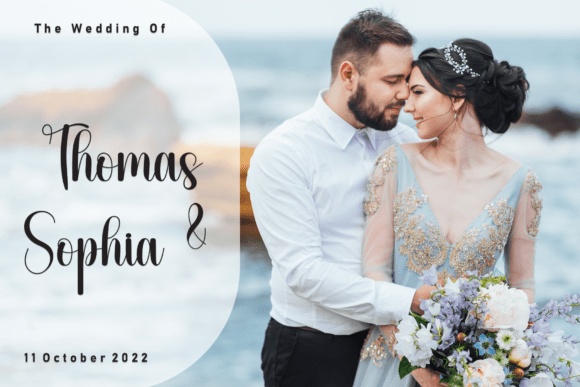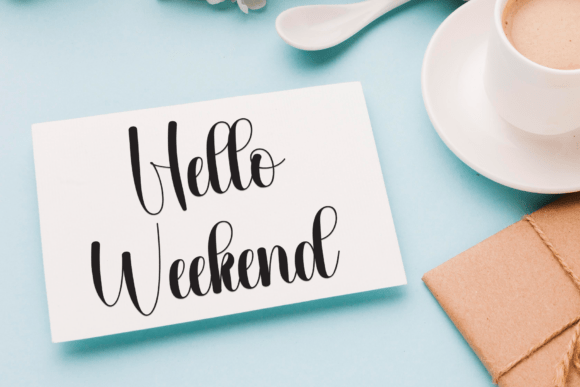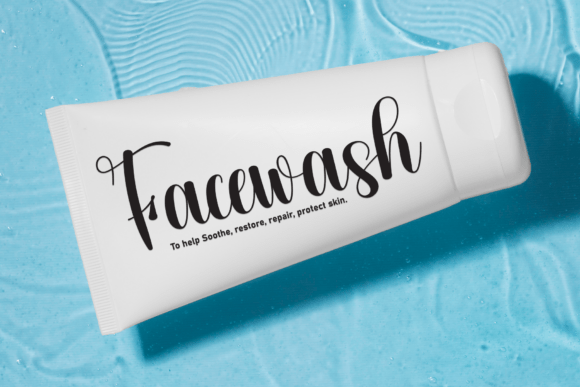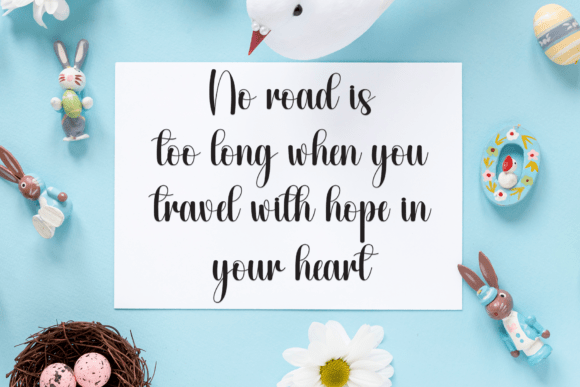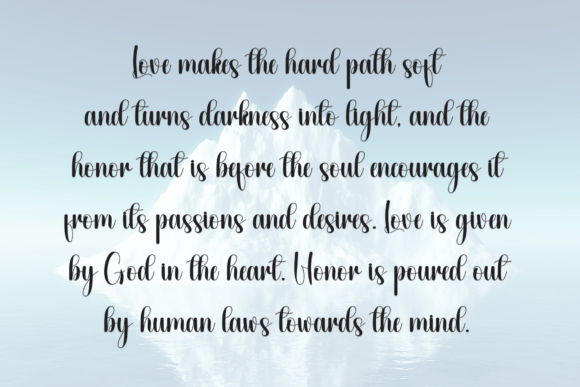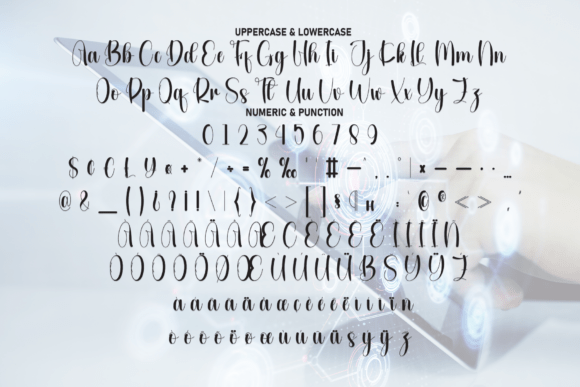
Introducing Lively and Endearing Digital Fonts: Adding a Touch of Joy to Your Designs
In the world of digital design, fonts play a crucial role in conveying emotions and setting the tone for a project. A well-chosen font can elevate your design, making it more engaging and memorable. For designers and crafters looking to add a touch of joy and whimsy to their work, we’ve discovered an enchanting, handwritten display font that’s sure to captivate. This charmingly friendly typeface is designed with the perfect blend of sweetness and playfulness, making it ideal for a variety of creative projects.
The Perfect Blend of Sweetness and Whimsy
This delightful digital font is characterized by its lively and endearing qualities, making it perfect for designers who want to add a personal touch to their work. The font’s handwritten display style gives it a unique, organic feel that’s both charming and sophisticated. Whether you’re working on a wedding invitation, card design, or any other project that demands a touch of joy, this font is sure to impress.
One of the best things about this digital font is its versatility. It’s perfect for a wide range of design projects, from personalizing wedding invitations to creating playful card designs. The font’s friendly and approachable style makes it ideal for designers and crafters who want to add a touch of personality to their work. Here are just a few ideas to get you started:
• Wedding Invitations: Add a touch of romance and whimsy to your wedding invitations with this beautiful digital font. It’s perfect for creating custom invitations that reflect your personal style.
• Card Designs: Whether you’re creating birthday cards, thank-you cards, or holiday cards, this font is sure to add a touch of joy and personality to your designs.
• Digital Art: This font is also perfect for digital art projects, such as illustrations, graphics, and more. Its playful style makes it ideal for adding text to your artwork.
Why Choose This Digital Font?
So, what sets this digital font apart from others? Here are just a few reasons why designers and crafters love it:
• Unique and Eye-Catching: This font is truly one-of-a-kind, making it perfect for designers who want to stand out from the crowd.
• Easy to Read: Despite its playful style, this font is easy to read, making it perfect for body text and headlines.
• Highly Versatile: This font can be used for a wide range of design projects, from digital art to print materials.
Tips for Using This Digital Font
To get the most out of this digital font, here are a few tips to keep in mind:
• Experiment with Sizes: This font looks great in a variety of sizes, from small body text to large headlines.
• Pair with Other Fonts: Try pairing this font with other fonts to create a unique and eye-catching combination.
• Use for Emphasis: Use this font to add emphasis to certain words or phrases in your design.